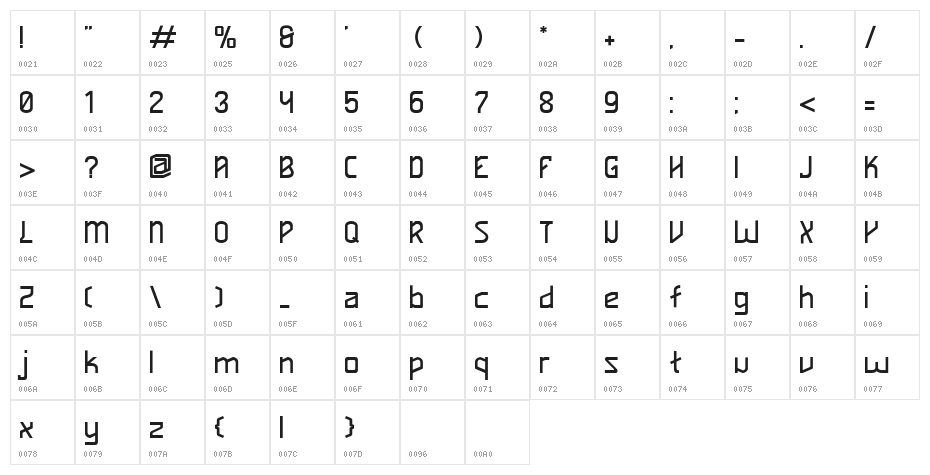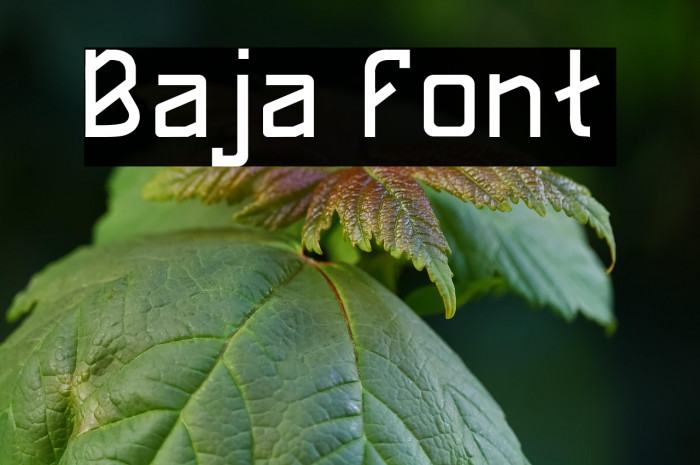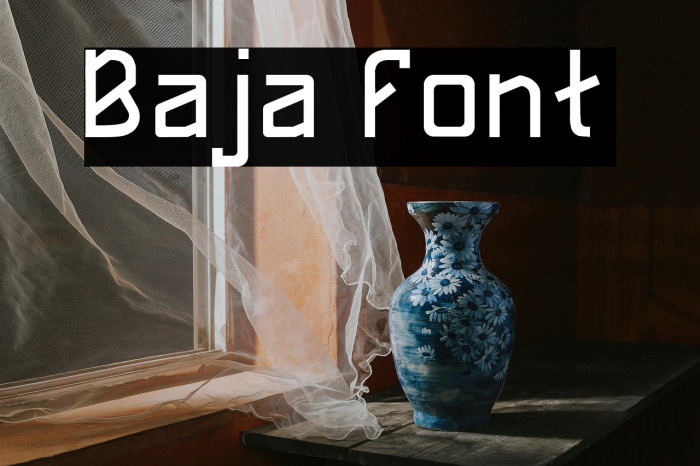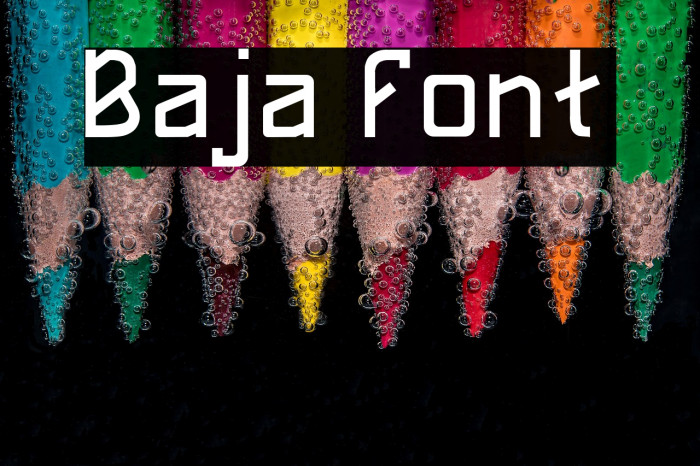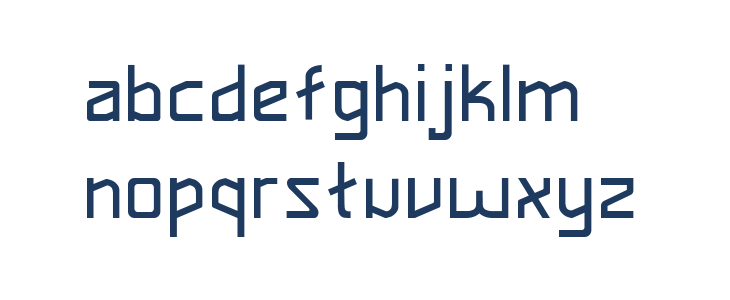
Baja Font
Baja Description
This font features a unique geometric design with angular and sharp edges, giving it a modern and futuristic appearance. The uppercase letters are distinct with a consistent height and a slightly condensed form, while the lowercase letters maintain a similar style with a more rounded approach. The numerals are bold and clear, ensuring readability. Special characters are designed to match the overall aesthetic, making them suitable for various applications. The font's clean lines and structured form make it ideal for projects that require a contemporary and innovative look.